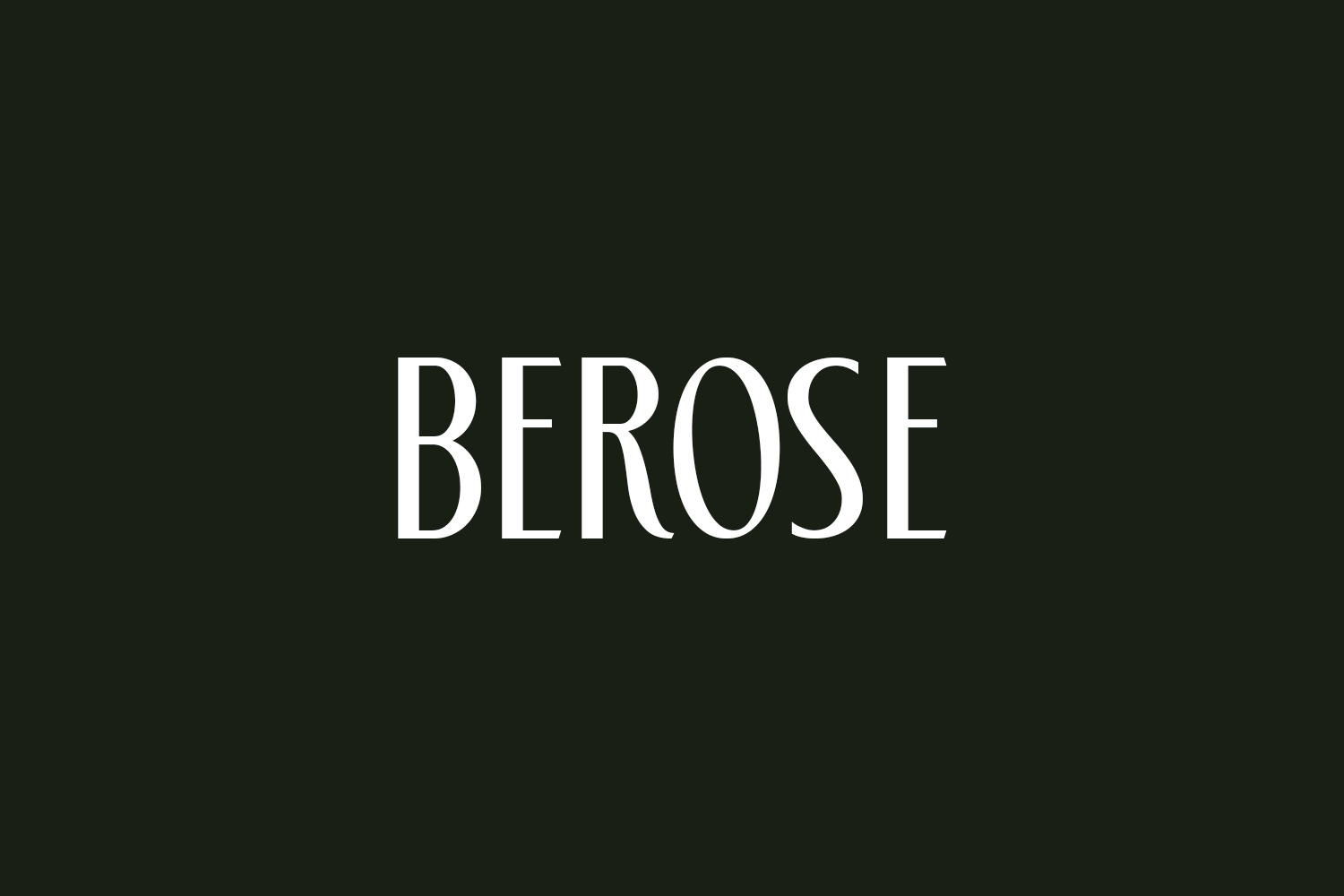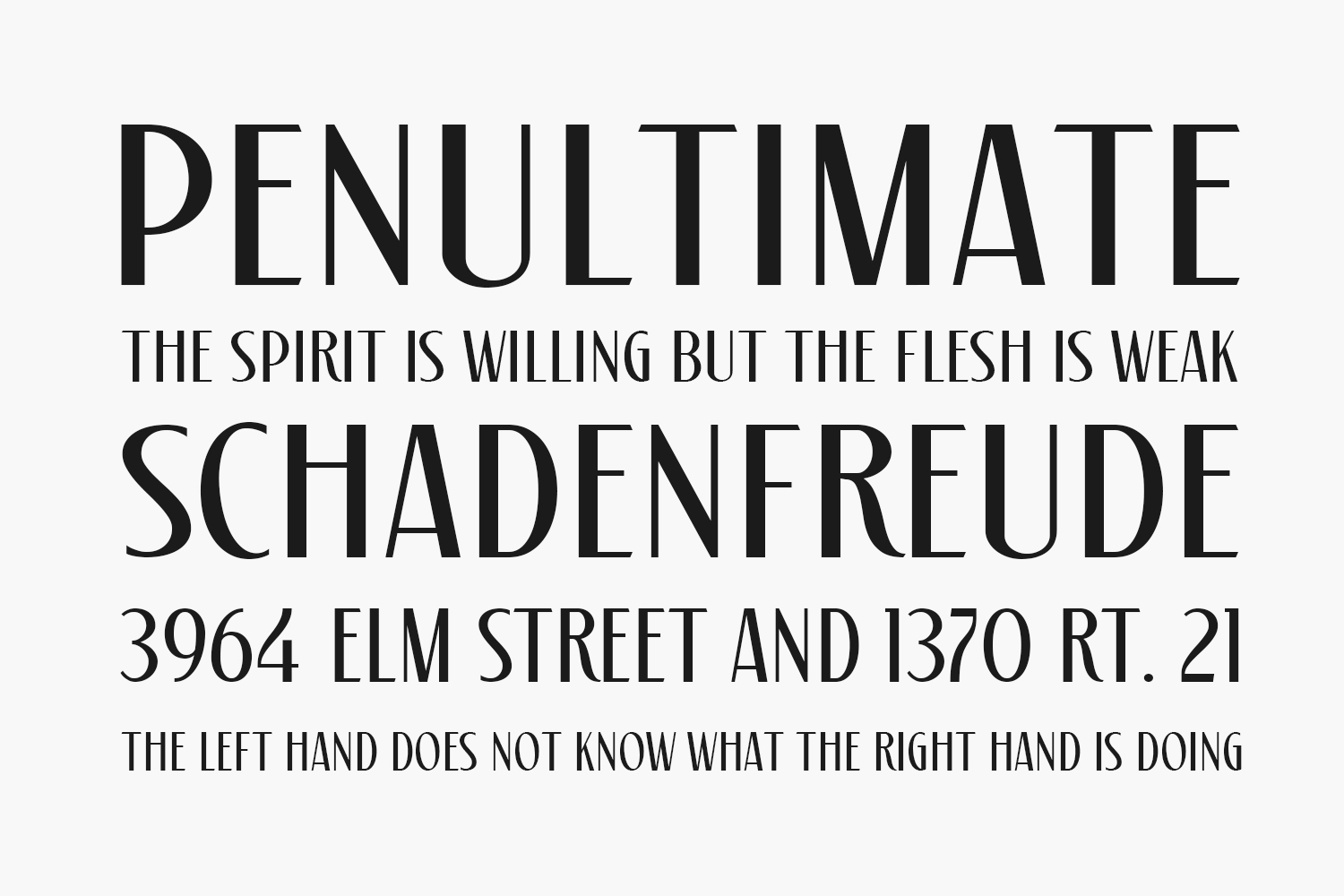
Berose Free Font is a luxurious typeface with high contrast. Comes in two styles regular and oblique with some alternative characters. With its elegant and dynamic character, Berose is perfect for romantic nuances such as wedding invitations, Covers, Movie titles, Quotes, Logotype, Signage, and more. To enable the OpenType Stylistic alternates, you need a program that supports OpenType features. Berose Free Font was designed by Surotype and is free for personal use only. Please purchase the full version for commercial use.
Designed by Surotype